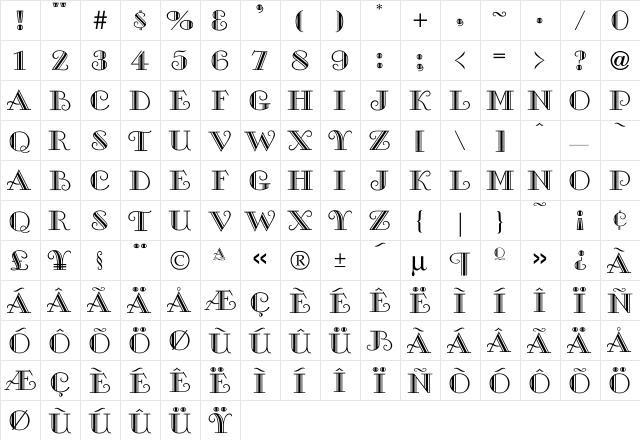
Smallwoo-Normal Regular
Smallwoo-Normal is a composed and adaptable typeface that performs quietly and consistently across a wide range of design contexts.